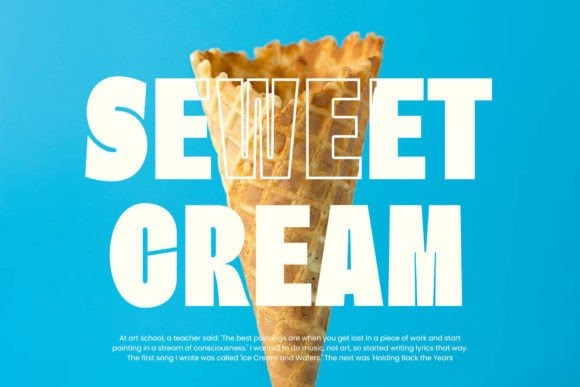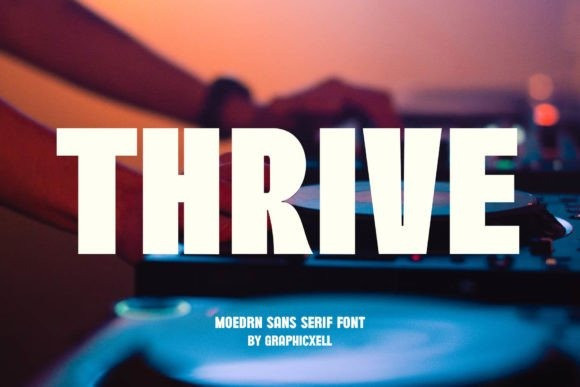
Thrive Font
Thrive Font, inspired by the famous minimalist logo, Thrive is perfect for the purposes of designing templates, brochures, videos, advertising branding, logos, invitations, layout designs, elegant crafting, beauty designs and many more.